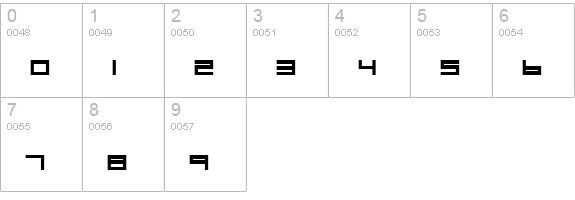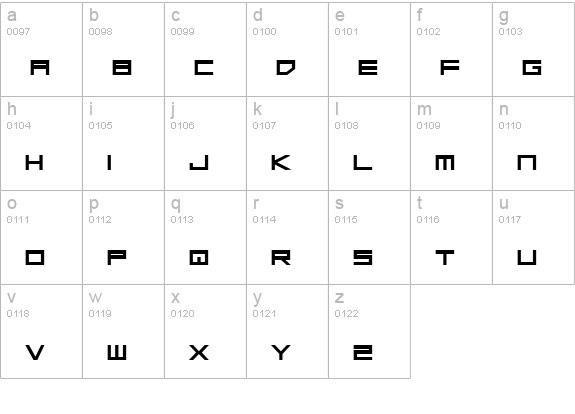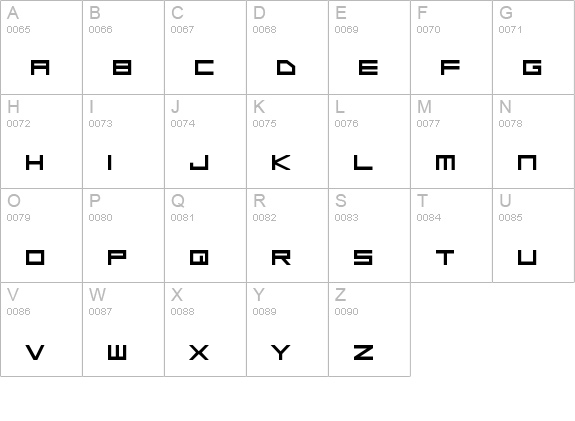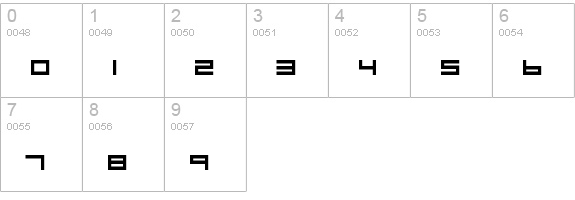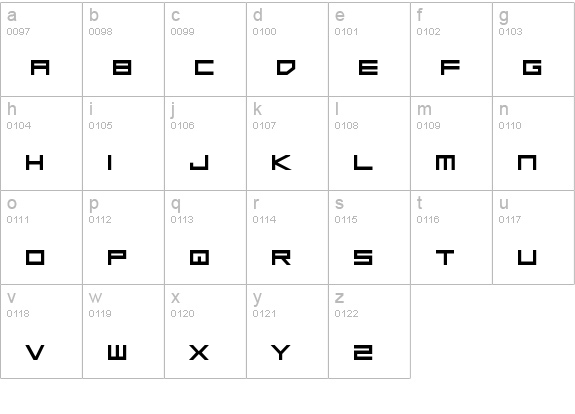
Low Gun Screen Bold Expanded is a strong, high-contrast, extended-width variant in the Low typeface family \xE2\x80\x94 well suited to headlines, attention-grabbing titles, and strong calls-to-action.
Introducing Low Gun Screen Bold Expanded font, a versatile and modern typeface that exudes confidence and boldness. With its expanded design, this font is perfect for making a statement in headlines, titles, and branding materials. The strong and impactful letterforms of Low Gun Screen Bold Expanded demand attention and leave a lasting impression on any design project. This unique font is not only visually striking but also highly functional, ensuring readability and legibility across various platforms and applications. Whether you're designing a poster, logo, website, or any other creative project, Low Gun Screen Bold Expanded will elevate your work to new heights. And the best part? Low Gun Screen Bold Expanded font is available for free download at FontsMarket.com! Don't miss out on this fantastic opportunity to enhance your designs with a bold and eye-catching typeface that will set you apart from the competition. Download Low Gun Screen Bold Expanded today and unleash your creativity!